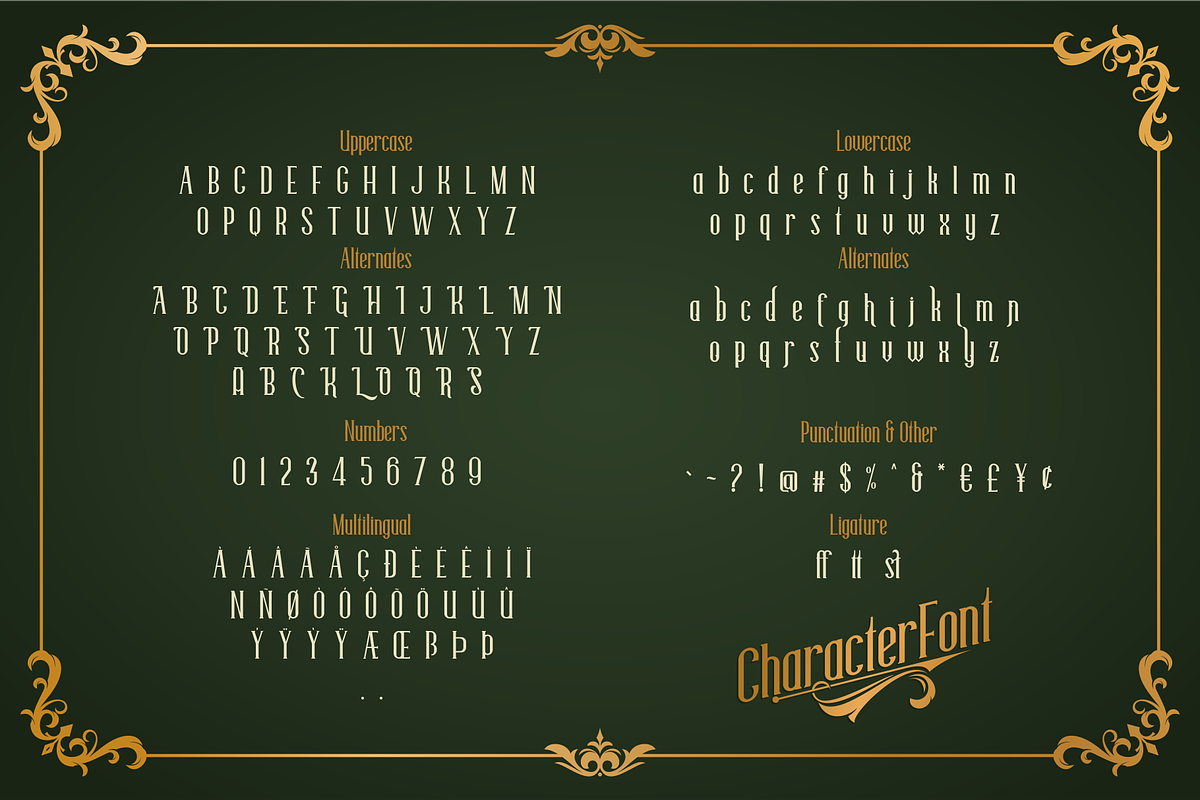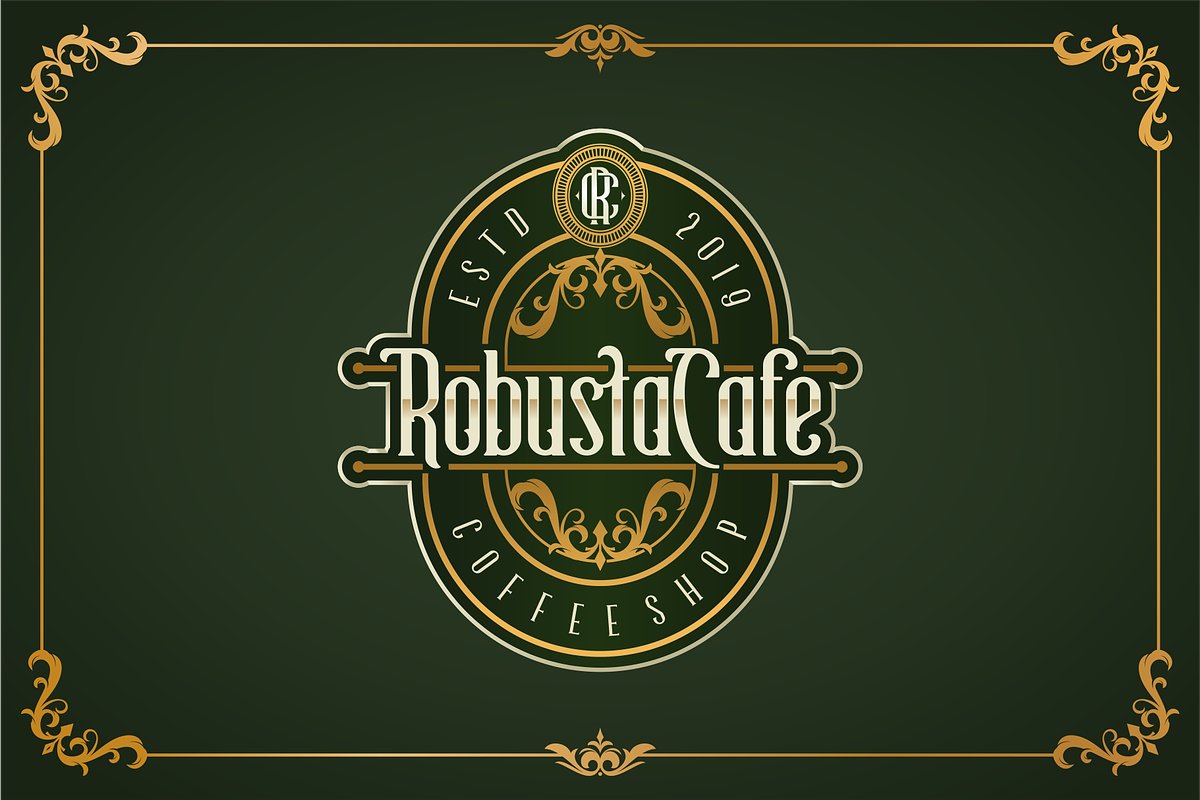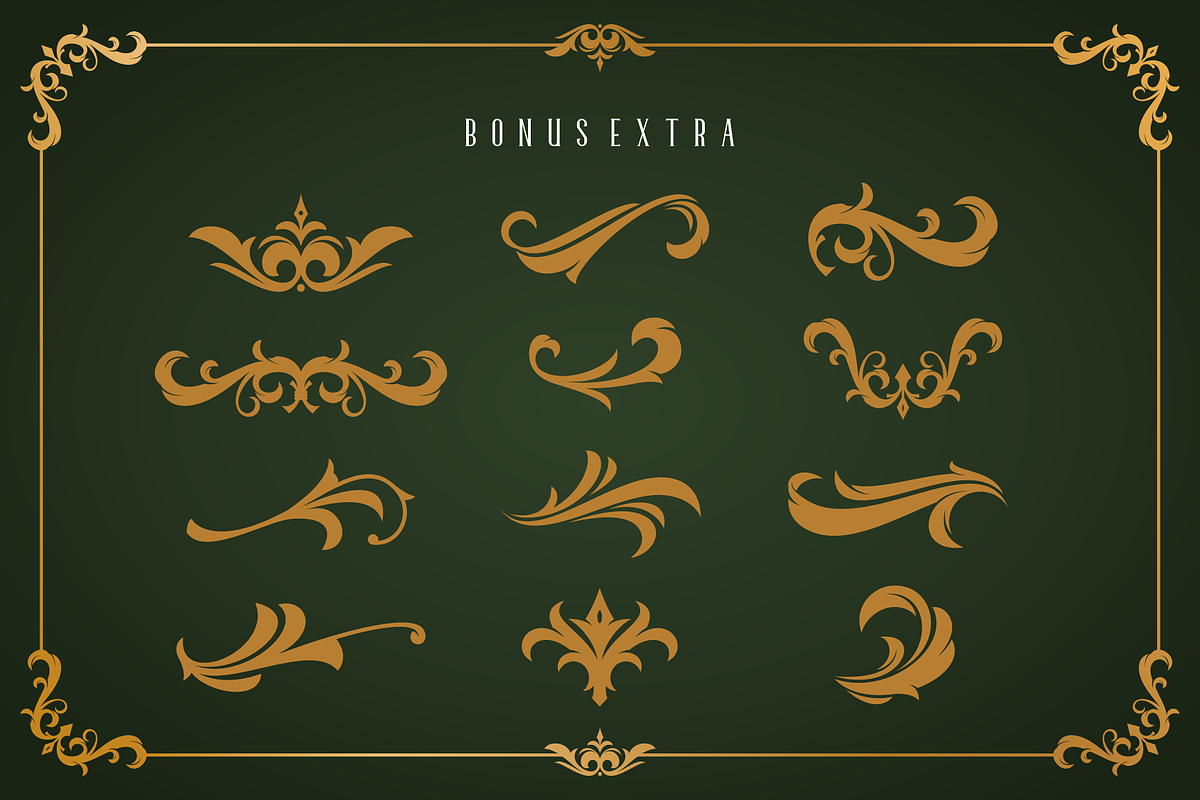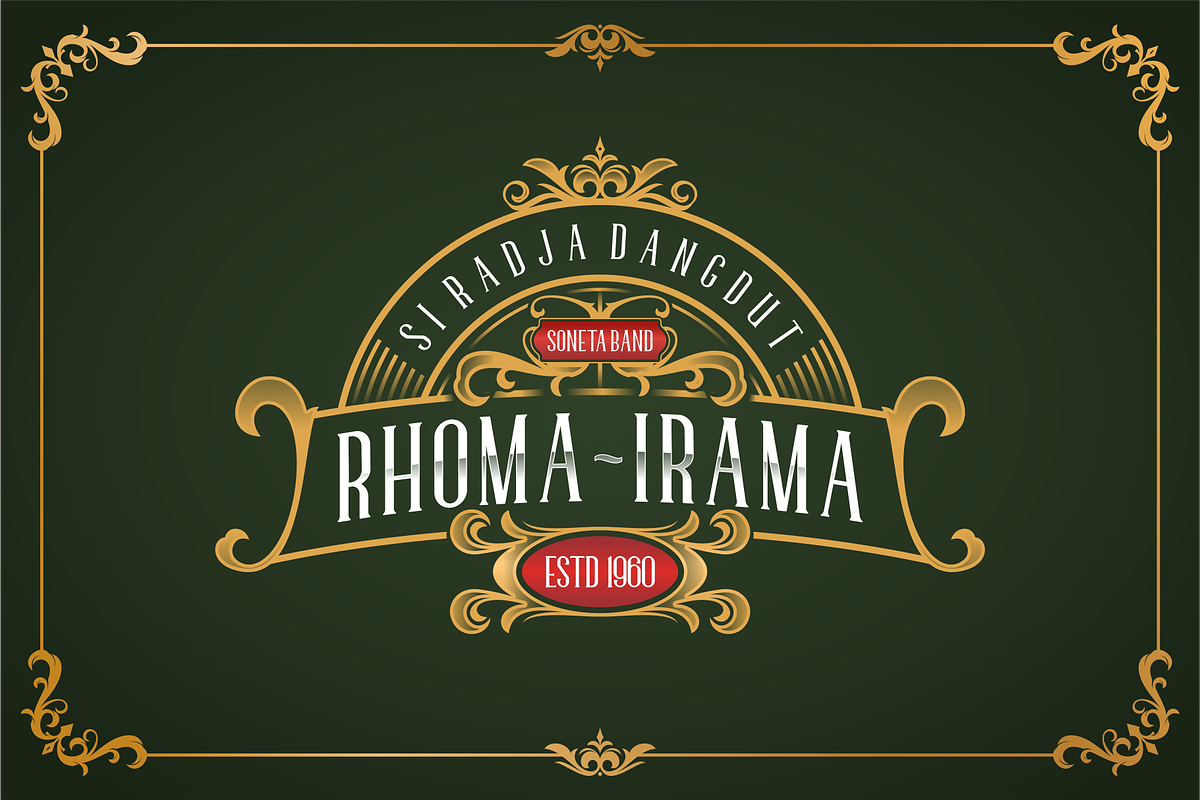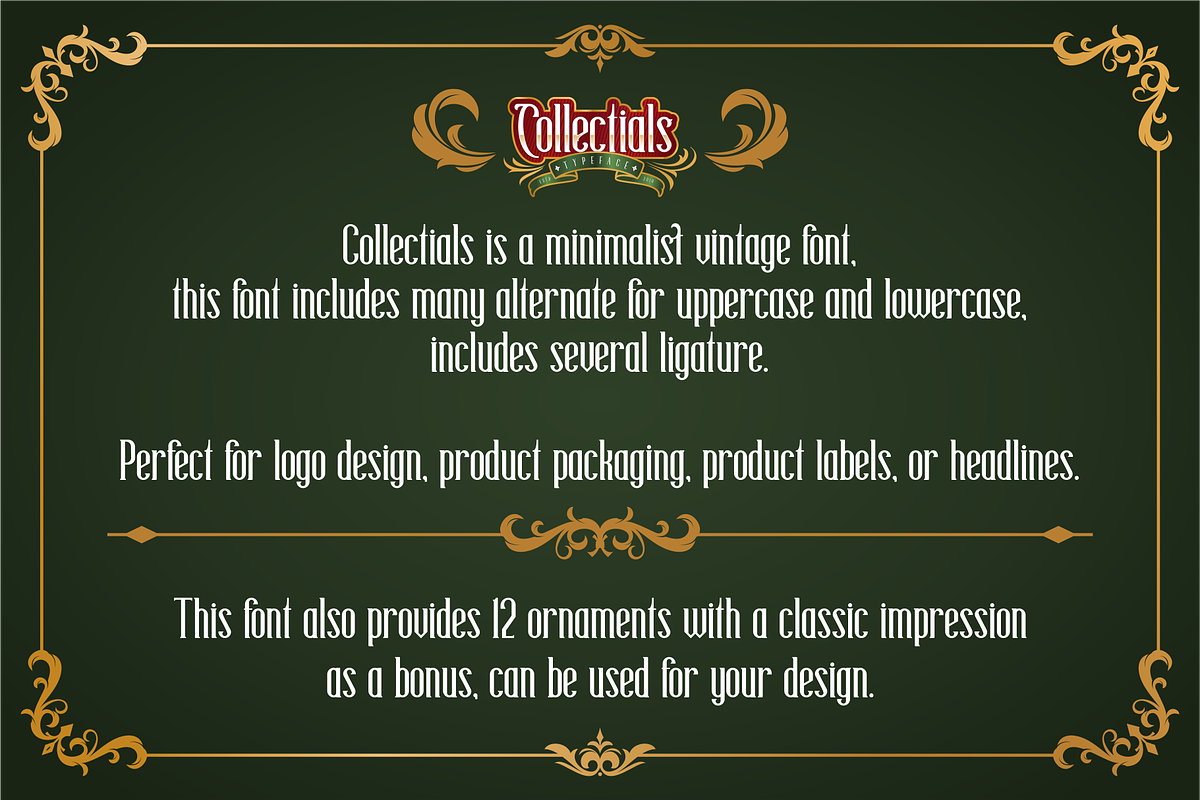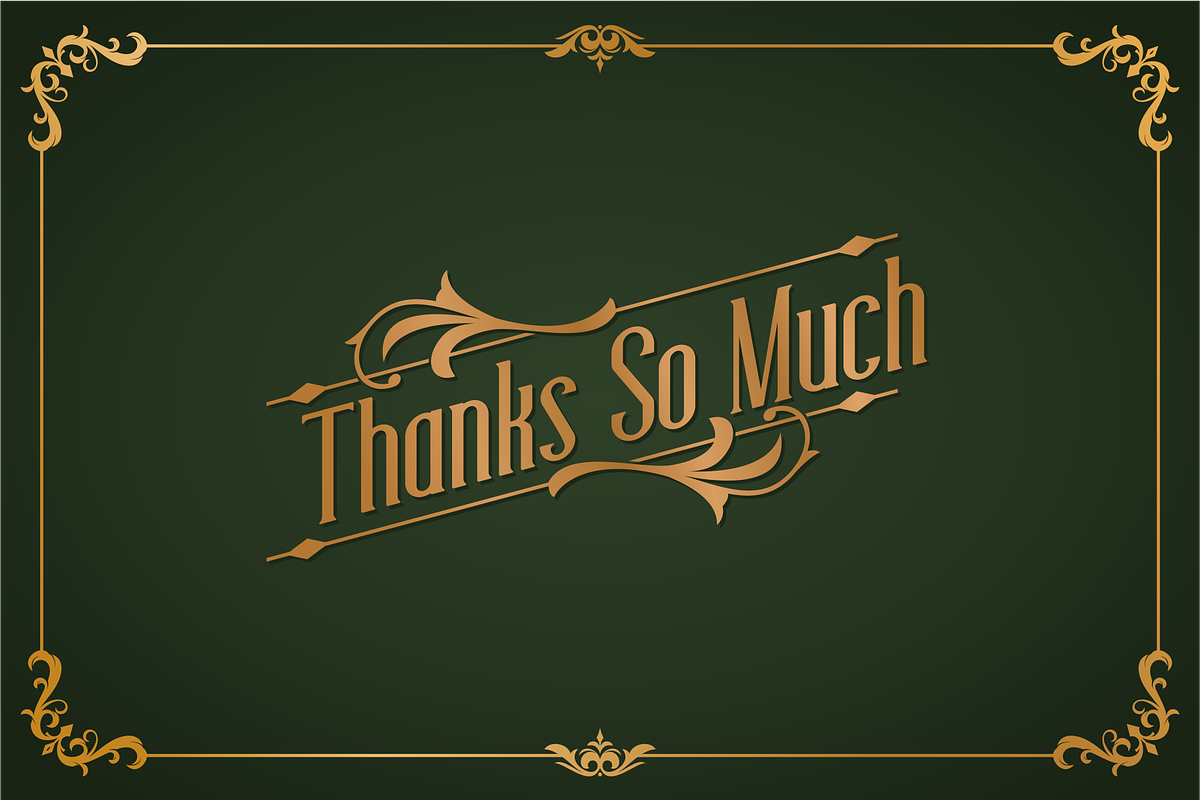
Collectials Classic Font
Collectials is a classic fonts with a minimalist design, with Uppercase and Lowercase available. It is suitable for vintage logo design, headlines or packaging design. This product also includes a set of ornaments (Ai, EPS, SVG and PDF). This combination allows you to easily build beautiful vintage designs in no time.
- Number,
- Uppercase & Lowercase
- Punctuation.